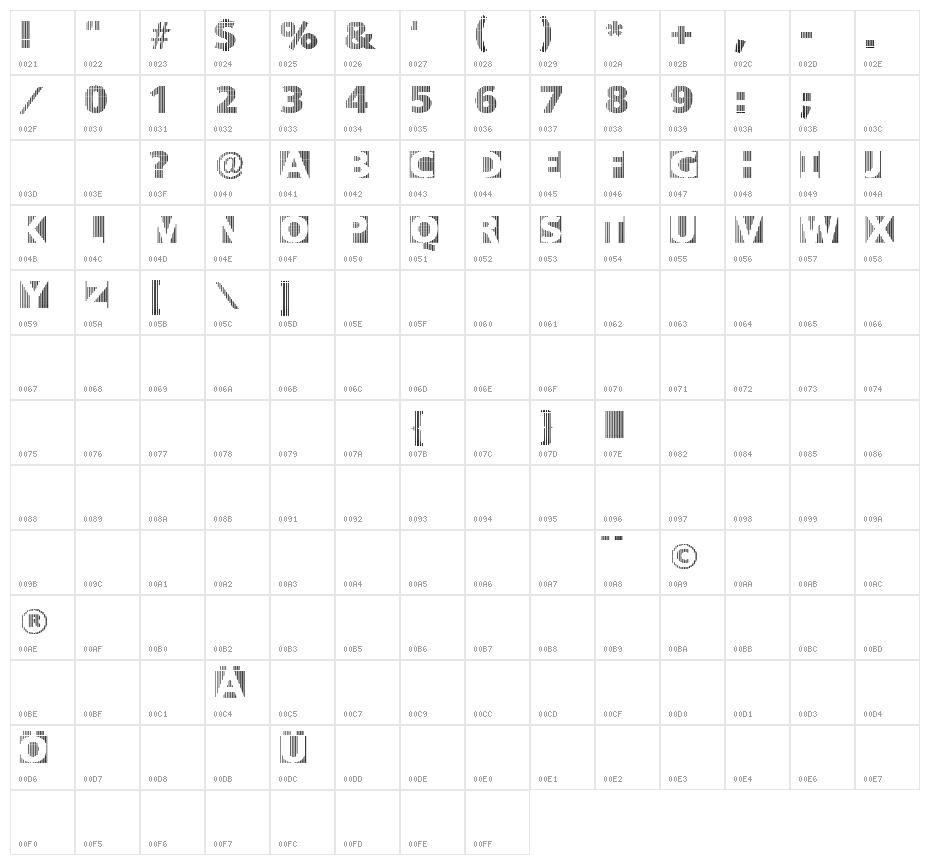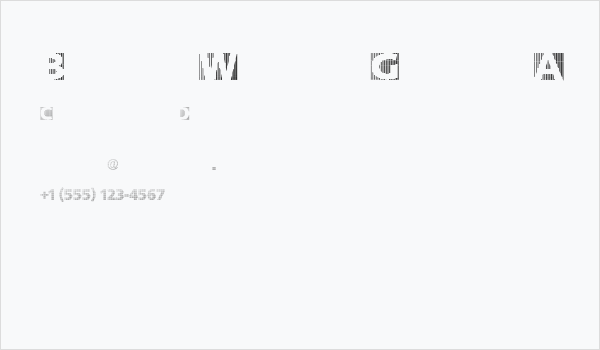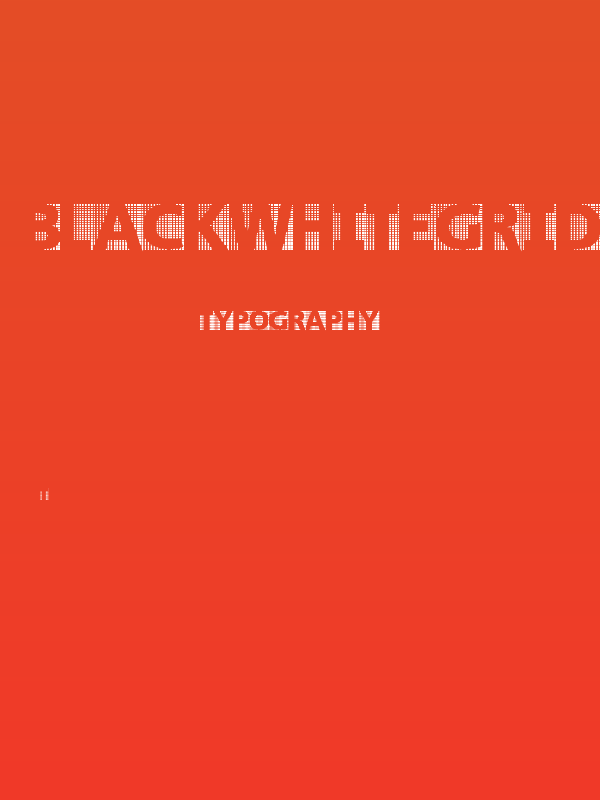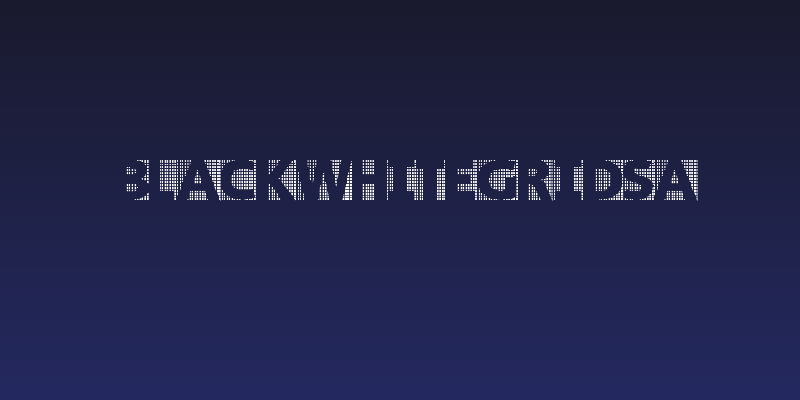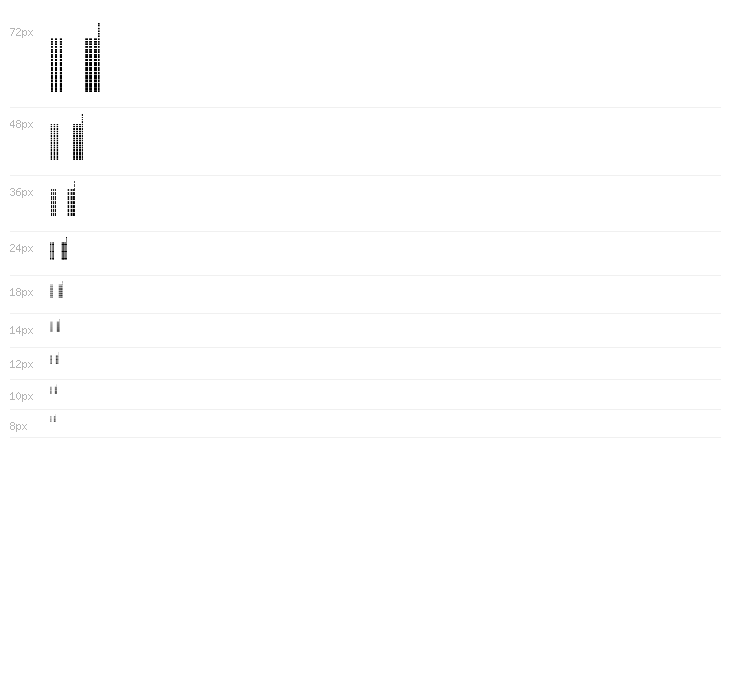
BlackWhiteGridsA Font
BlackWhiteGridsA Description
This font features a unique grid-like pattern, where each character is composed of small, evenly spaced vertical lines. The design creates a visually striking effect, making it ideal for attention-grabbing headlines or artistic projects. The characters maintain a consistent height and width, providing a uniform appearance across the alphabet and numbers. The grid pattern adds a modern and digital feel, reminiscent of pixel art or digital displays. This font is best suited for creative and experimental designs where a bold statement is desired.
| Proposed Projects | Ideal for digital art, tech-themed posters, modern branding, and experimental design projects. |